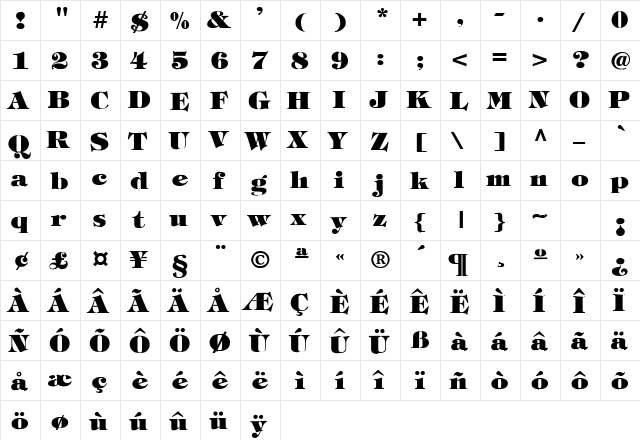
Timpani_Heavy-Normal Regular Font Preview
Timpani_Heavy-Normal Regular
Timpani_Heavy-Normal Regular Font Details
Design Context for Timpani_Heavy-Normal Typeface
Timpani_Heavy-Normal takes a measured approach to typography — its balanced proportions and neutral character make it a reliable workhorse for both digital and print work.